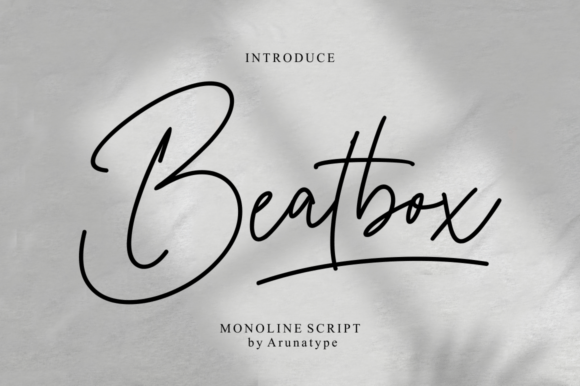
Journey into the Realm of Beatbox: A Handwritten Masterpiece for Visual Expression
In a world teeming with digital creations, the Beatbox font emerges as a beacon of individuality and charm. This captivating script typeface, meticulously crafted by Aruna Type, is a testament to the power of handwritten artistry in the digital realm. Inspired by the timeless beauty of cursive script, Beatbox possesses an inherent elegance that elevates your designs beyond the mundane.
Unleash your creativity and embark on a visual odyssey with Beatbox. Its smooth, flowing lines dance across the page, evoking a sense of effortless grace. Whether you're designing product packaging, branding projects, magazine covers, or captivating social media posts, Beatbox adds an aura of sophistication and refinement that commands attention.
Picture your products adorned with Beatbox's enchanting characters. Its sweeping curves and graceful serifs lend an air of exclusivity and luxury, transforming your branding into a symbol of excellence. Let Beatbox weave its magic into your wedding invitations, imbuing them with a touch of timeless romance. Or let it become your canvas for expressing heartfelt sentiments, adding a personal touch to your digital communications.
With Beatbox, the possibilities are endless. Its versatility extends to a wide range of design applications, from logos and posters to social media graphics and website headers. Its PUA encoding ensures effortless access to a treasure trove of glyphs and swashes, allowing you to unleash your creativity without limits.
Embrace the allure of Beatbox and watch your designs blossom into masterpieces. Its ability to blend seamlessly with a variety of backgrounds makes it an ideal choice for adding visual interest to any project. Bask in the glow of its radiant beauty as it transforms your words into captivating works of art.
Beatbox is more than just a font; it's an invitation to break free from the ordinary and embrace the extraordinary. It's a tool for visual expression that speaks to the heart and soul. Allow Beatbox to become your creative ally, guiding you on a journey of visual storytelling that will leave an indelible mark on your audience.
Indulge in the enchanting world of Beatbox and unlock the door to limitless design possibilities. Discover the beauty of handwritten elegance and let your creativity soar to new heights. Experience the magic of Beatbox today!